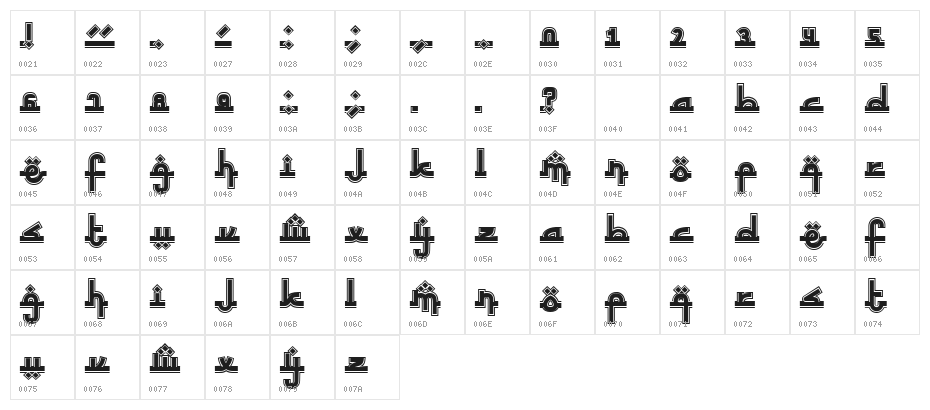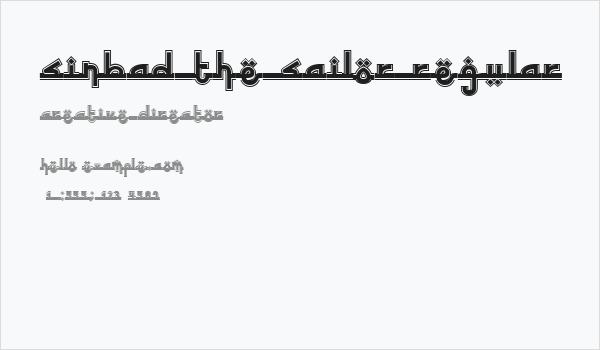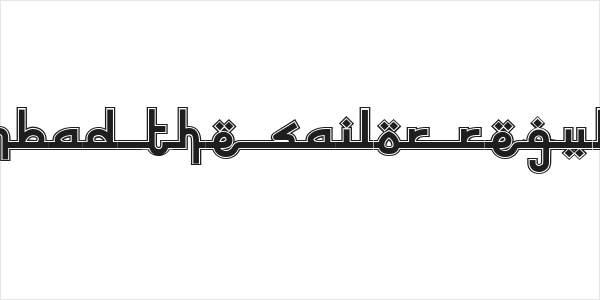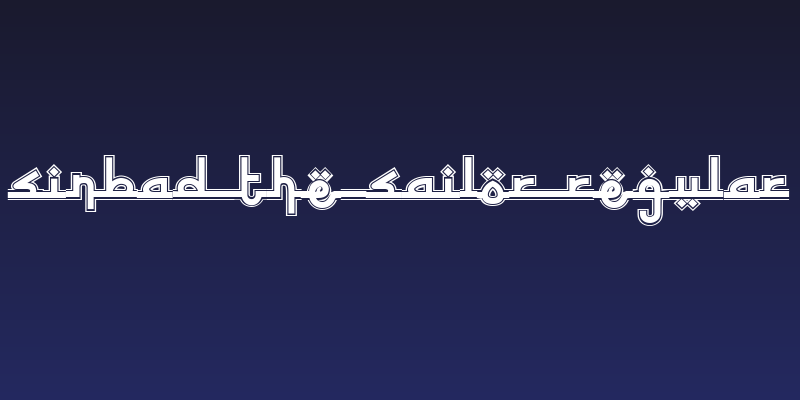
Sinbad the Sailor Regular Font
Sinbad the Sailor Regular Description
This font features a bold, decorative style with intricate geometric patterns and a strong emphasis on horizontal lines. The characters are outlined with a thick border, creating a striking visual impact. The design incorporates unique, angular shapes and embellishments that give it an exotic and adventurous feel. The font is highly stylized, with a consistent use of decorative elements across both uppercase and lowercase letters, as well as numbers and special characters. The overall appearance is reminiscent of ancient scripts, making it suitable for themes related to exploration and mystery.
| Proposed Projects | Ideal for themed posters, book covers, or branding related to adventure, exploration, or historical themes. |